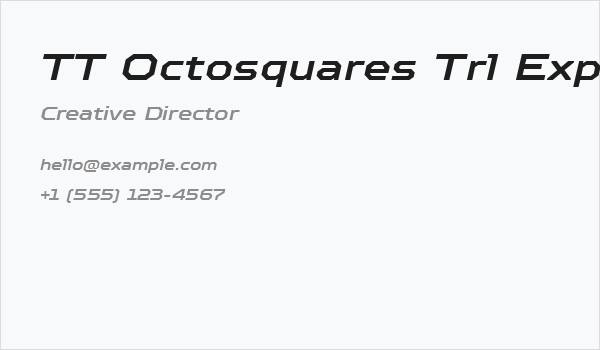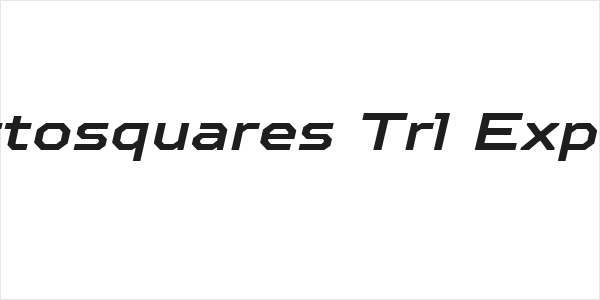
TT Octosquares Trl Exp Db It Font
TT Octosquares Trl Exp Db It Description
This font features a modern and geometric design with a distinct angular style. The characters are structured with sharp edges and a consistent slant, giving it a dynamic and futuristic appearance. The uppercase and lowercase letters maintain a uniform width, contributing to a cohesive look. The numerals and special characters follow the same angular theme, ensuring visual harmony across all elements. This font's unique style makes it suitable for projects that require a bold and contemporary aesthetic.
| Proposed Projects | Ideal for tech branding, modern posters, video game titles, and futuristic designs. |